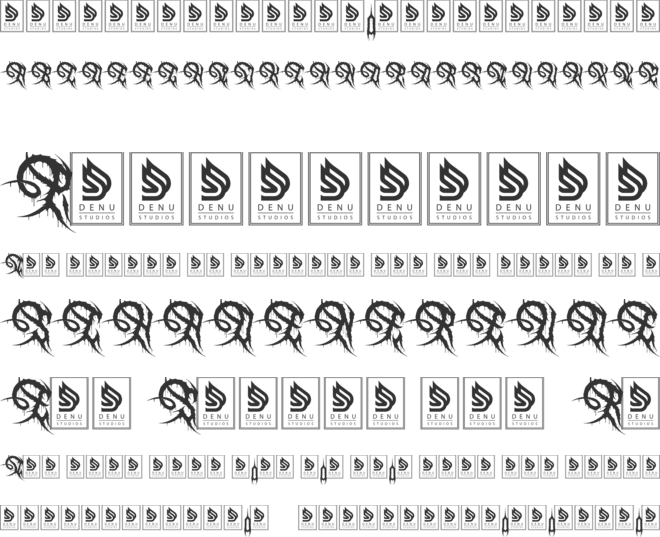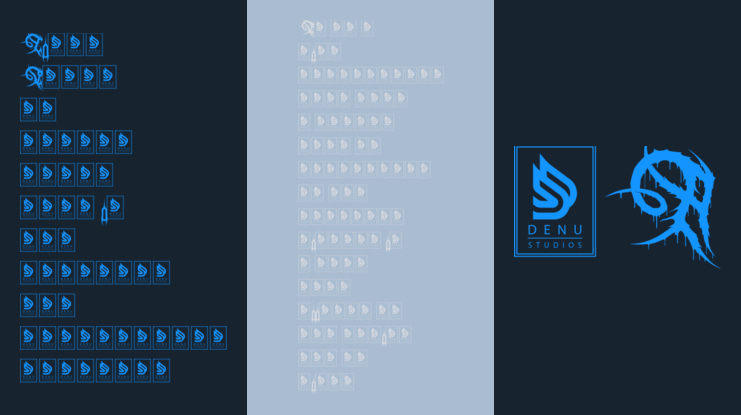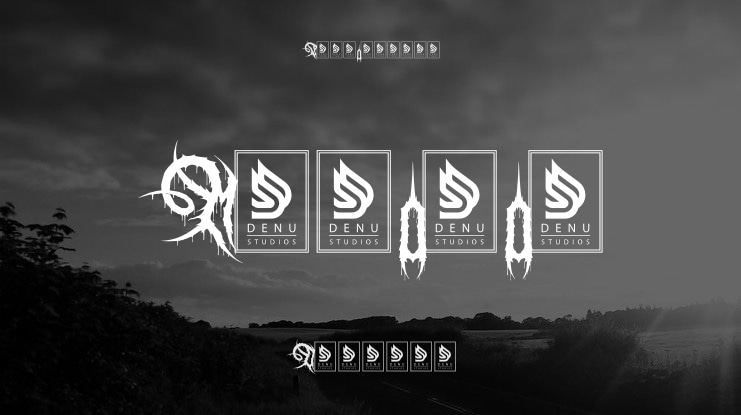
Minotor | Black Metal Font product packaging, mugs, quotes, posters, shopping bags, t-shirts, book covers, name card, invitation cards, greeting cards, label, photography, watermark, special events, and all your other lovely projects that need a Black Metal Typeface taste.